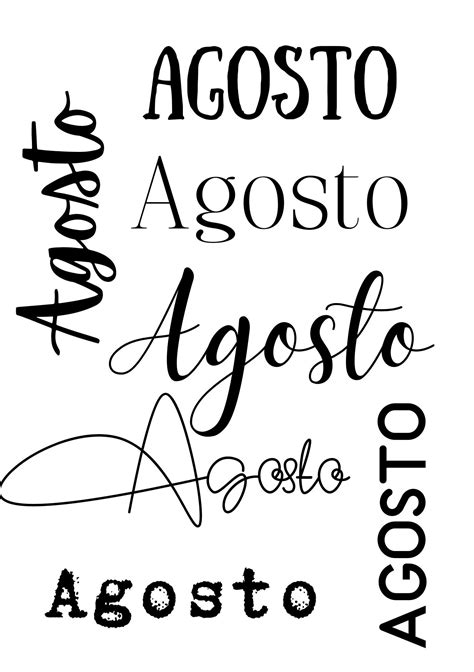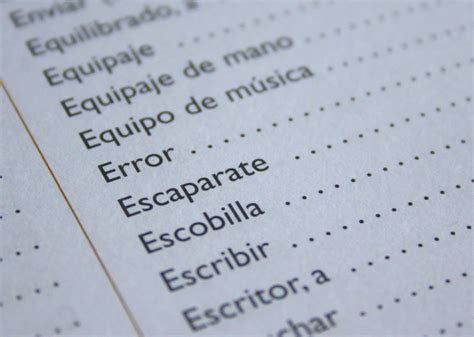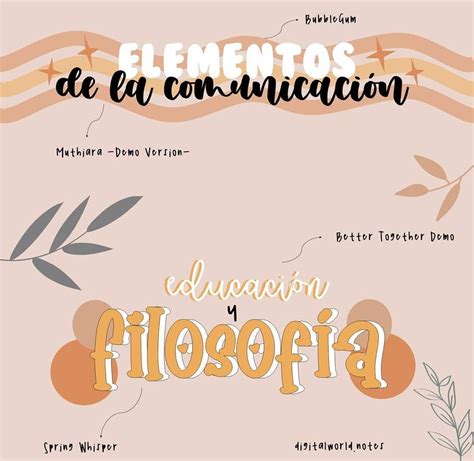
Embarking on a journey to learn or master the Spanish language is an exciting adventure that opens doors to a rich cultural heritage and vibrant communities. One often overlooked aspect of this journey is the importance of using the right Spanish Language Fonts. These fonts are not just about aesthetics; they play a crucial role in ensuring that the written language is accurately represented, especially when it comes to special characters and diacritical marks.
Understanding Spanish Language Fonts
Spanish, like many other Romance languages, uses a set of diacritical marks and special characters that are essential for correct pronunciation and meaning. These include the acute accent (á, é, í, ó, ú), the tilde (ñ), and the diaeresis (ü). Using fonts that support these characters ensures that your written Spanish is both accurate and visually appealing.
Why Choose the Right Font?
Selecting the right font for Spanish language texts is more than just a matter of style. It directly impacts readability and comprehension. Here are some key reasons why choosing the right font is important:
- Accuracy: Ensures that all diacritical marks and special characters are correctly displayed.
- Readability: A well-designed font enhances the reading experience, making it easier to understand and retain information.
- Professionalism: Using appropriate fonts in documents, presentations, and digital content conveys a sense of professionalism and attention to detail.
- Cultural Sensitivity: Respects the linguistic and cultural nuances of the Spanish language.
Popular Spanish Language Fonts
There are numerous fonts available that are well-suited for the Spanish language. Here are some of the most popular ones:
- Arial: A widely used sans-serif font that supports all Spanish diacritical marks.
- Times New Roman: A classic serif font that is highly readable and supports Spanish characters.
- Calibri: A modern sans-serif font that is clean and easy to read, making it a great choice for both print and digital media.
- Georgia: A serif font designed for screen reading, ensuring clarity and readability.
- Verdana: Another screen-friendly font that is highly readable and supports Spanish characters.
Special Considerations for Digital Content
When creating digital content in Spanish, such as websites, blogs, or social media posts, it's essential to choose fonts that are web-safe and support a wide range of devices and browsers. Here are some tips for selecting the right fonts for digital content:
- Web-Safe Fonts: Opt for fonts that are widely supported across different browsers and operating systems. Examples include Arial, Times New Roman, and Verdana.
- Font Fallbacks: Always include font fallbacks in your CSS to ensure that if a specific font is not available, a suitable alternative is used.
- Responsive Design: Choose fonts that scale well on different screen sizes and resolutions, ensuring a consistent reading experience across devices.
Using Spanish Language Fonts in Microsoft Word
Microsoft Word is a popular tool for creating documents in various languages, including Spanish. Here’s how you can ensure that your documents use the right Spanish Language Fonts:
- Open Microsoft Word and create a new document.
- Go to the Home tab and click on the Font dropdown menu.
- Select a font that supports Spanish characters, such as Arial or Times New Roman.
- If you need to change the font for specific text, highlight the text and select the desired font from the dropdown menu.
- To ensure that all special characters are correctly displayed, go to the Insert tab and use the Symbol feature to insert any necessary diacritical marks.
By following these steps, you can create professional-looking documents in Spanish that are both accurate and visually appealing.
Using Spanish Language Fonts in Adobe InDesign
Adobe InDesign is a powerful tool for designing layouts and publications. Here’s how you can use Spanish Language Fonts in InDesign:
- Open Adobe InDesign and create a new document.
- Go to the Type menu and select Font.
- Choose a font that supports Spanish characters, such as Calibri or Georgia.
- To apply the font to specific text, highlight the text and select the desired font from the dropdown menu.
- Use the Character panel to insert any necessary diacritical marks or special characters.
InDesign’s advanced typography features allow you to fine-tune the appearance of your text, ensuring that it looks professional and is easy to read.
Common Mistakes to Avoid
When working with Spanish Language Fonts, there are a few common mistakes to avoid:
- Using Non-Supportive Fonts: Avoid fonts that do not support Spanish diacritical marks, as this can lead to incorrect character display.